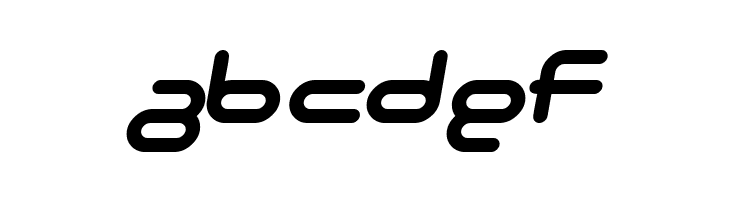
Gypsy Killer Platinum Regular Font
- Font: Gypsy Killer Platinum Regular
A bold, italicized font with futuristic curves and decorative star elements.
A bold, italic, futuristic font with rounded edges and a sleek design.
A bold, futuristic font with rounded edges and consistent stroke width.